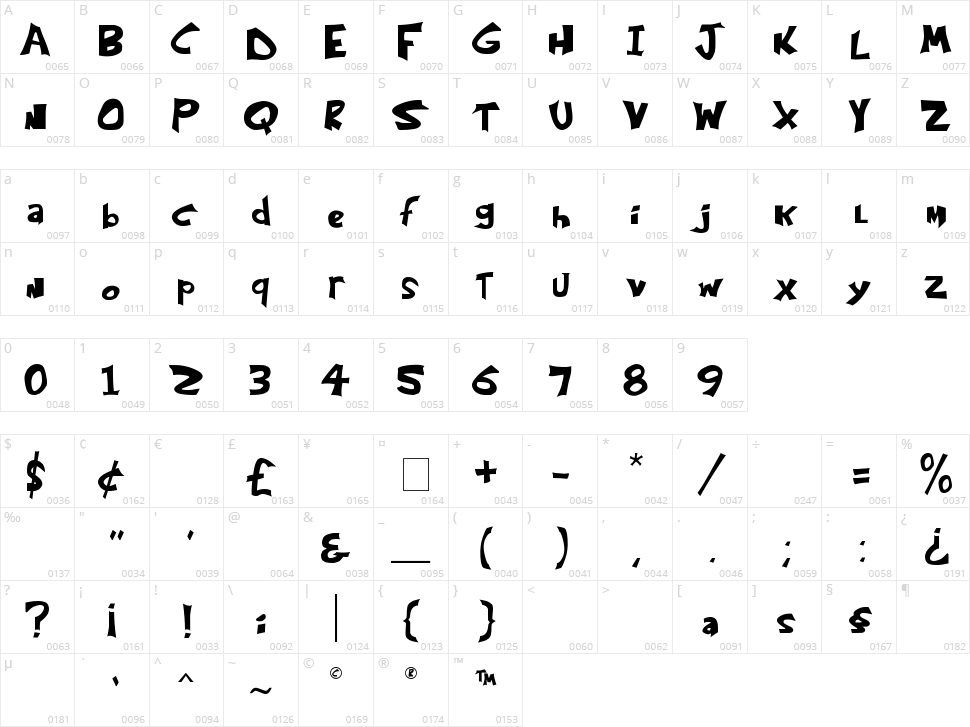
Kringle Castle
Kringle Castle fonts are based on the Rankin/Bass - "Santa Claus is Coming to Town" title font.
This set includes 2 fonts, Kringle Castle and Kringle Castle Night.
Designer Name: Steve Ferrera